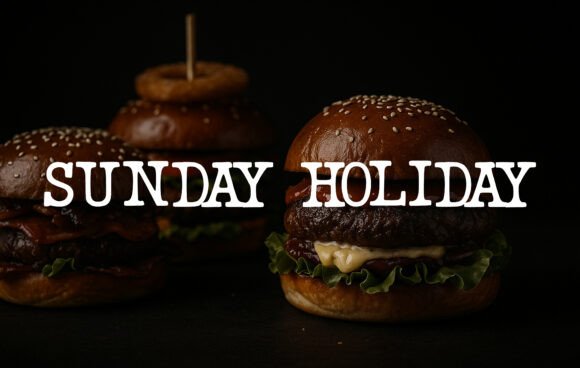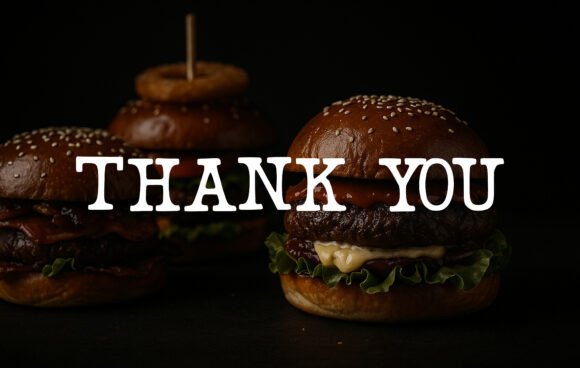
The Perfect Pile of Creativity: Introducing Burgers Font
As a designer, there’s nothing quite like the thrill of landing on the perfect font for a project. It’s the moment when the words start to dance on the page, and your vision begins to take shape. For me, that moment came when I discovered Burgers Font – a lovely and timeless slab serif font that’s been the secret ingredient in some of my most memorable designs.
Burgers Font is more than just a pretty face; it’s a versatile tool that’s perfect for creating eye-catching logos, branding, and quotes. Every letter has a unique and beautiful touch, which will make your design come alive! Whether you’re a seasoned pro or just starting out, Burgers Font is a valuable addition to any designer’s toolkit.
Burgers Font Key Features
- Unique Characteristics: The font features a bold, playful, and modern design, making it ideal for use in food, restaurant, and hospitality branding.
Burgers Font Review
I’ve had the chance to work with Burgers Font, and I must say it’s a solid choice for casual and playful designs. ✨ The font’s bold and rounded edges give it a fun, approachable vibe that’s perfect for fast food brands or kids’ menus.
One of the things I appreciate about Burgers Font is its flexibility. ✨ It comes in a range of weights, from light to bold, making it easy to adapt to different design needs. The font also supports a wide range of languages, which is a big plus.
However, there are a few limitations to consider. ⚠️ The font’s rounded edges can sometimes make it difficult to read at smaller sizes. Additionally, the font’s playful nature may not be suitable for more formal or professional designs.
Here are a few pros and cons to keep in mind:
- ✨ Wide range of weights and language support
- ✨ Fun, approachable vibe perfect for casual designs
- ⚠️ Difficult to read at smaller sizes
- ⚠️ May not be suitable for formal or professional designs
Overall, I’d say Burgers Font is a great choice for designers looking for a playful, casual font. Just be mindful of its limitations, and you’ll be golden.
Tips for Getting the Most Out of Burgers Font
Use Burgers Font for titles, headings, and any text that requires a bold and playful touch. Experiment with different font sizes and colors to create visual interest. Consider pairing Burgers Font with a clean sans-serif font for body text.
Burgers Font is ideal for:
- Playful marketing campaigns
- Children’s products and services
- Fun and creative projects